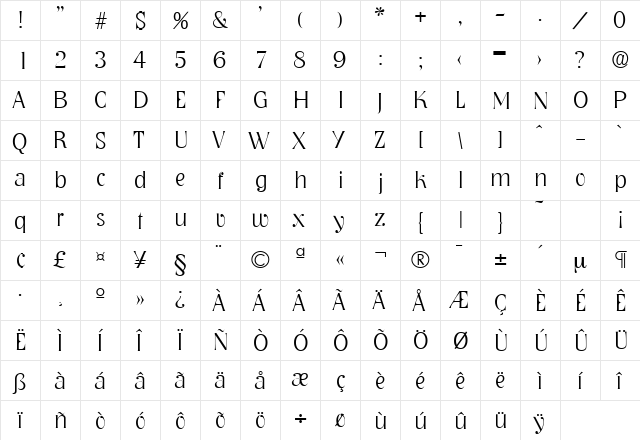
Nashville-Serial-ExtraLight Regular
Design Context for Nashville-Serial-ExtraLight Typeface
Nashville-Serial-ExtraLight is a composed and adaptable typeface that performs quietly and consistently across a wide range of design contexts. Its slender proportions lend an understated elegance to any composition.